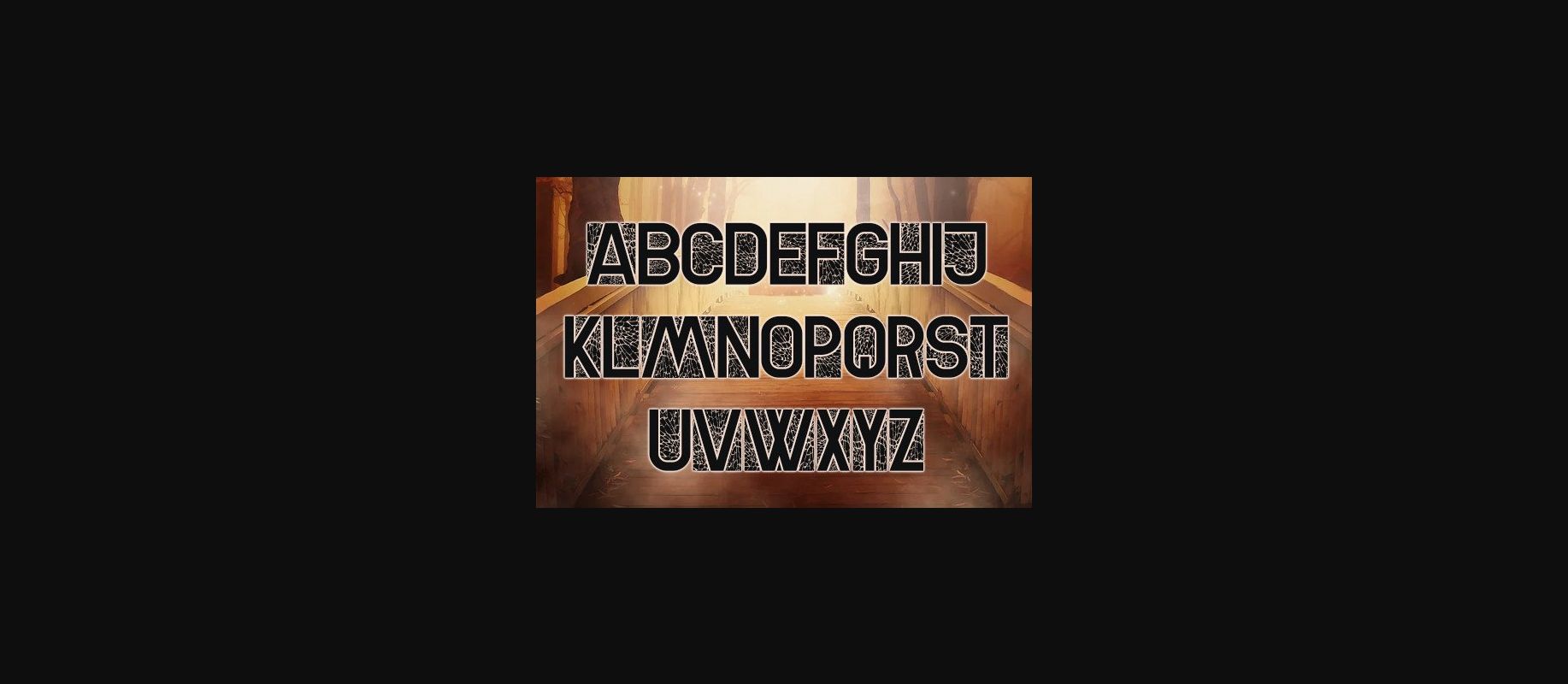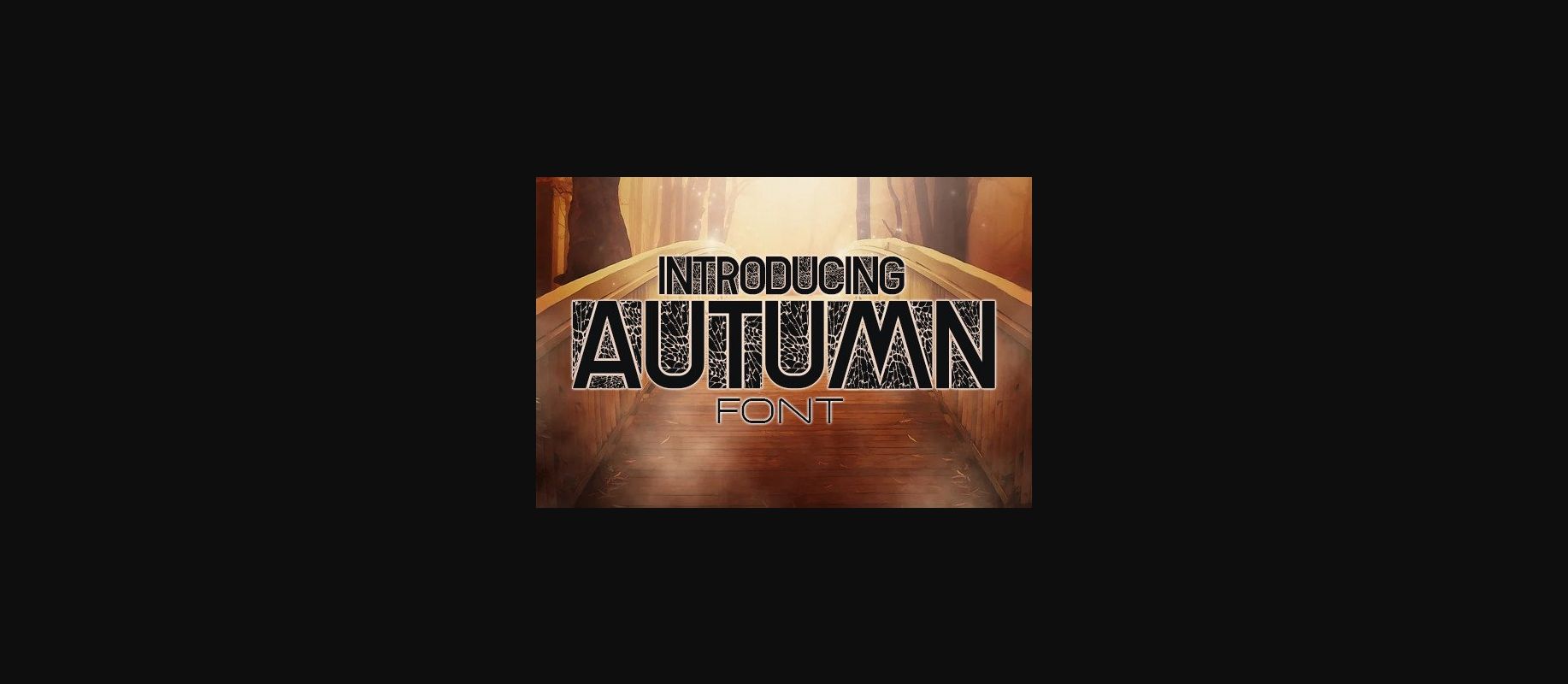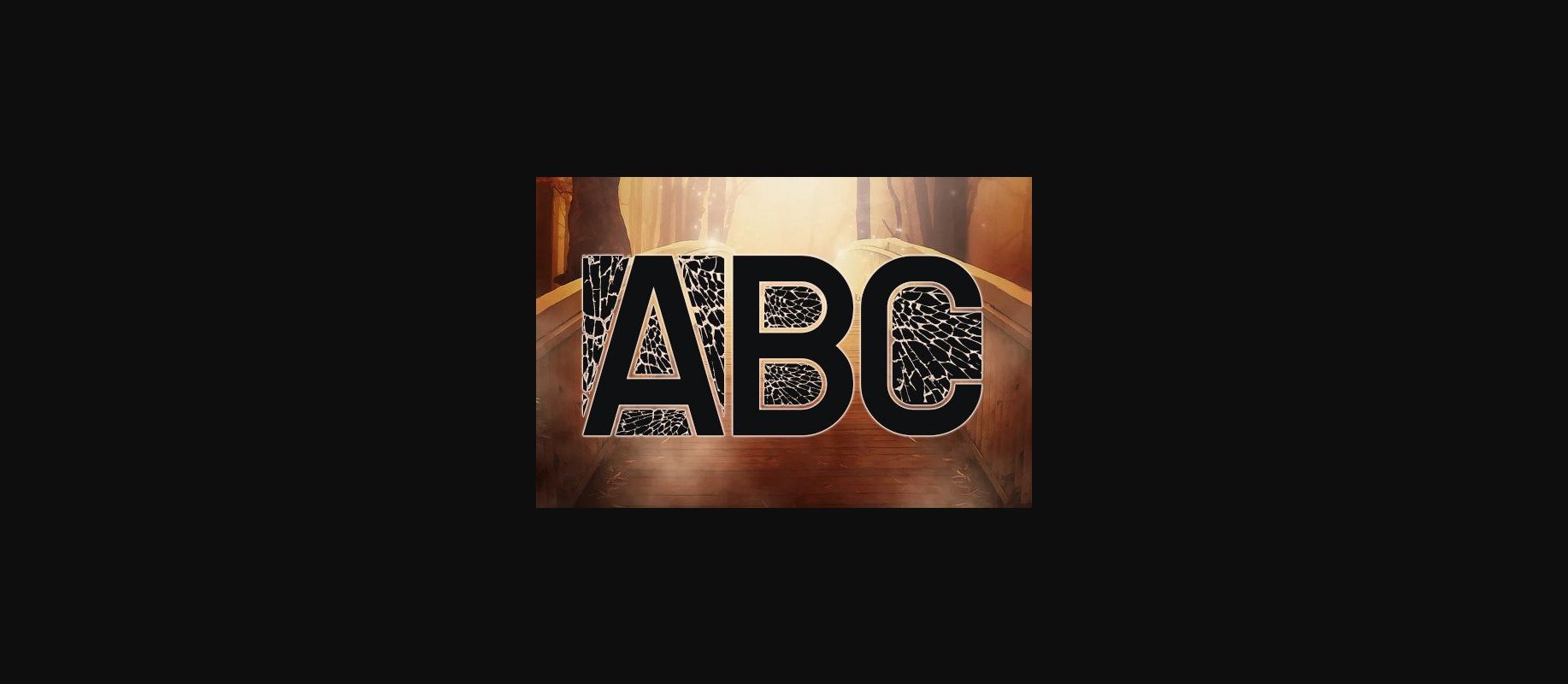
HomeDecorative FontsAutumn Font Decorative Fonts Autumn Font FacebookXPinterestWhatsApp 1 of 5 ... Autumn Font Poster 2... Autumn Font Poster 3... Autumn Font Poster 4... Autumn Font Poster 5... About Autumn Font Autumn is a fun and unique decorative font. No matter the topic, this typeface will be a great asset to your font library as it has the potential to enhance any creation. DOWNLOAD NOW People also explored Layla Font Starlight Lovers Stella Font Mellina Nidda Font Master Bold Font Mama Mimi Font Sunshine with You Font Retigra Font Lefthand Font 287 0 TagsAutumnAutumn Font Previous articleVoteflag FontNext articleNear Font LEAVE A REPLY Cancel reply Comment: Please enter your comment! Name:* Please enter your name here Email:* You have entered an incorrect email address! Please enter your email address here Website: Save my name, email, and website in this browser for the next time I comment. Personal Use Free Haris Wood Personal Use Free Read more about this font Over the Top Personal Use Free Read more about this font Font Slice Personal Use Free Read more about this font Salmoni Personal Use Free Read more about this font BLOG Free vs Paid Fonts: Why Investing in Premium Fonts Is Worth It Free vs Paid Fonts: Why Premium Fonts Are Worth It in 2025 The debate of free vs paid fonts continues in the design world. While... Elegant Wedding Invitation Fonts – Handwritten & Script Fonts Where to Buy American Fonts Online in 2024 Best Fonts for T-Shirt Design – Top 2025 Picks